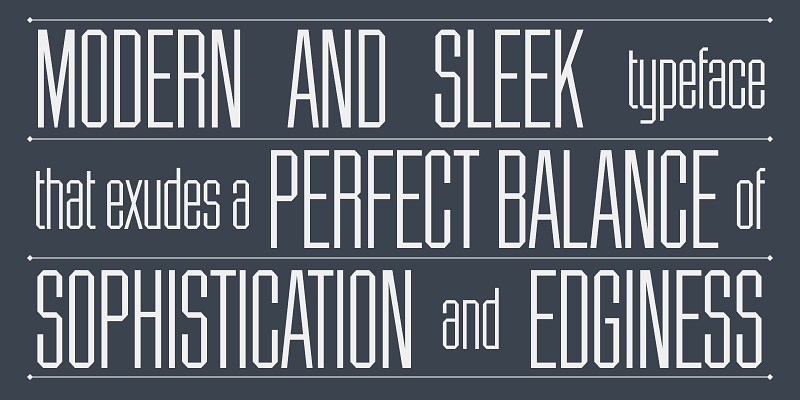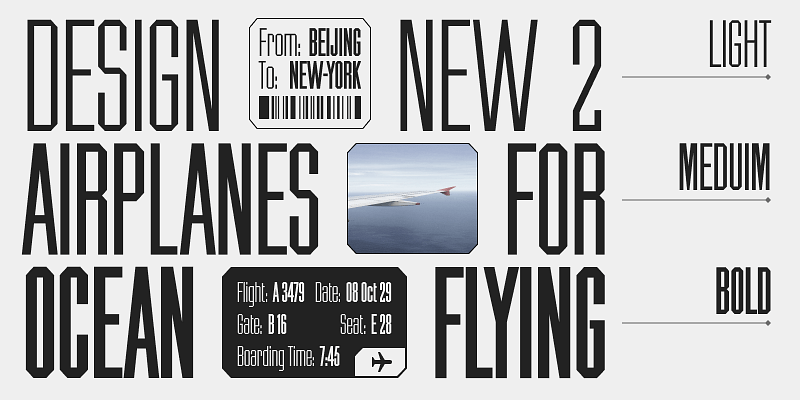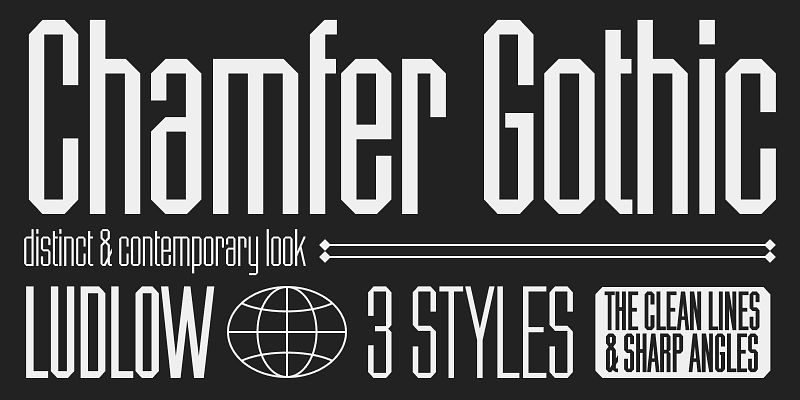
Chamfer Gothic is a condensed display typeface with sharp verticals, tight spacing, and distinctive chamfered terminals. Its tall, narrow proportions and squared-off forms give it a striking industrial character with palpable tension. Chamfer Gothic commands attention! Bring a little edge and purpose-built precision to your bold typographic compositions, including headlines, posters, magazines, book covers, and packaging where space is limited and impact is everything.